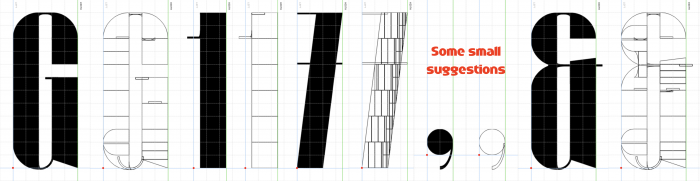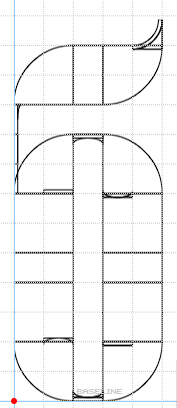
@elmoyenique: thanks for the suggestions, (I knew the ampersand looked weird!) I implemented all the changes except for the comma because I like the original more, but thank you nonetheless.
A very good font, I hope Mееk won’t miss it, but there are already a couple of tips about the Cyrillic alphabet. The diagonal stroke in И Й should be thin, and the rest thick. Д Л can be triangular, but here a rectangular shape would be better.
@Sychoff: thank you for the tips, i'll get to work on fixing them.
Nice!
Congratulations! FontStruct Staff have deemed your FontStruction worthy of special mention. “Copilot” is now a Top Pick.
the distribution of thickness/weight is spot-on. nice work.
@winty5: thanks, That was probably the thing I was most worried about.
Excellent high contrast work with some nice details.
Nice
alt б